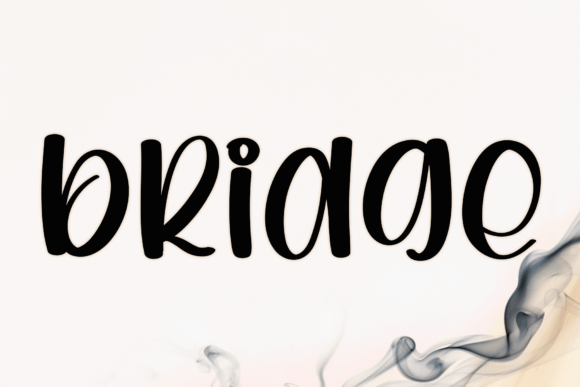
The Bridge Font: Elevating Your Designs with Timeless Elegance
Have you ever been in the middle of a design project, and suddenly, you’re stuck on finding the perfect font? I recall a particularly frustrating experience when I was working on a branding project for a luxury client. The brief was simple: create a sophisticated, high-end look that exuded elegance and refinement. But, as I scrolled through my font library, nothing seemed quite right. That was until I stumbled upon the Bridge Font. ✨
A Personal Review: What I Love About Bridge Font
The Bridge Font has quickly become a staple in my design toolkit, and for good reason. Here are a few things that I absolutely love about it:
- ✅ Contemporary yet classic: Bridge Font strikes the perfect balance between modern style and timeless elegance, making it versatile for a wide range of projects.
- ✨ Impeccable form: The font’s attention to detail and beautifully crafted letterforms make it a joy to work with.
- 🌈 Variety and flexibility: With a range of glyphs and stylistic alternates, Bridge Font offers endless possibilities for creative expression.
While Bridge Font is an exceptional font, there are a few minor quirks to be aware of:
- ⚠️ Occasional kerning issues: As with any font, you may encounter some kerning issues, particularly when using the font at smaller sizes. However, these can be easily adjusted in most design software.
- 🤔 Limited availability of certain characters: Some users have noted that certain characters, such as ligatures, are not available in all versions of the font. However, this is a relatively rare occurrence and can often be resolved by using alternative characters or glyphs.
The Story Behind Bridge Font
While the true story behind Bridge Font remains a mystery, it’s clear that the designer was inspired by timeless classic calligraphy. The result is a font that exudes elegance, sophistication, and refinement. Whether used for branding, packaging, or editorial projects, Bridge Font is sure to elevate your designs to new heights.
| Font Name | Bridge Font |
| Author | Black line |
| What type of projects is Bridge Font best suited for? | Bridge Font is versatile and can be used for a wide range of projects, including branding, packaging, editorial designs, and more. |
| Is Bridge Font suitable for body text? | While Bridge Font is beautiful, it’s primarily designed for display text. For body text, you may want to consider a more legible font. |
| Does Bridge Font come with any additional features or glyphs? | Yes, Bridge Font includes a range of glyphs and stylistic alternates, making it a versatile and creative choice for designers. |